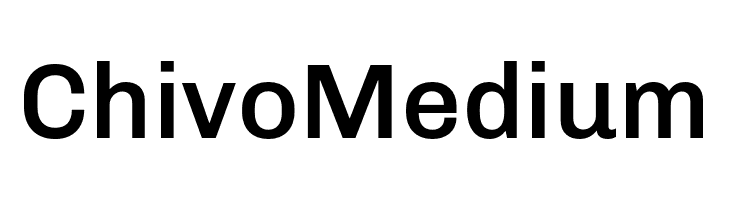
( Fonts by Nathan Rutzky )
A modern, monospaced font with clear legibility and uniform spacing.
( Fonts by Nathan Rutzky )
A modern, medium-weight italic sans-serif font with clear, balanced characters.
( Fonts by Nathan Rutzky )
A modern, monospaced italic font ideal for coding and technical documentation.
( Fonts by Manfred Klein - manfred-klein.ina-mar.com )
A modern sans-serif font with clean lines and balanced proportions.
( Fonts by Manfred Klein - manfred-klein.ina-mar.com )
A bold, modern typeface with strong lines and a slightly condensed form.